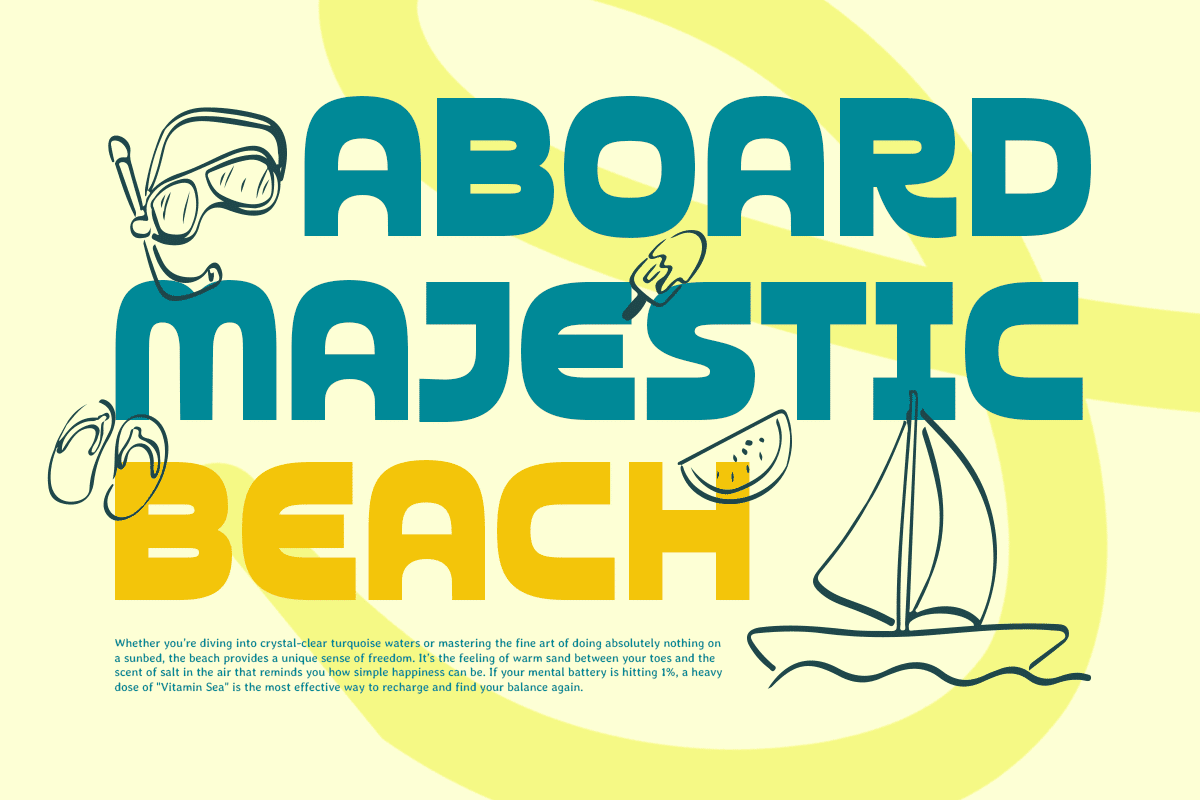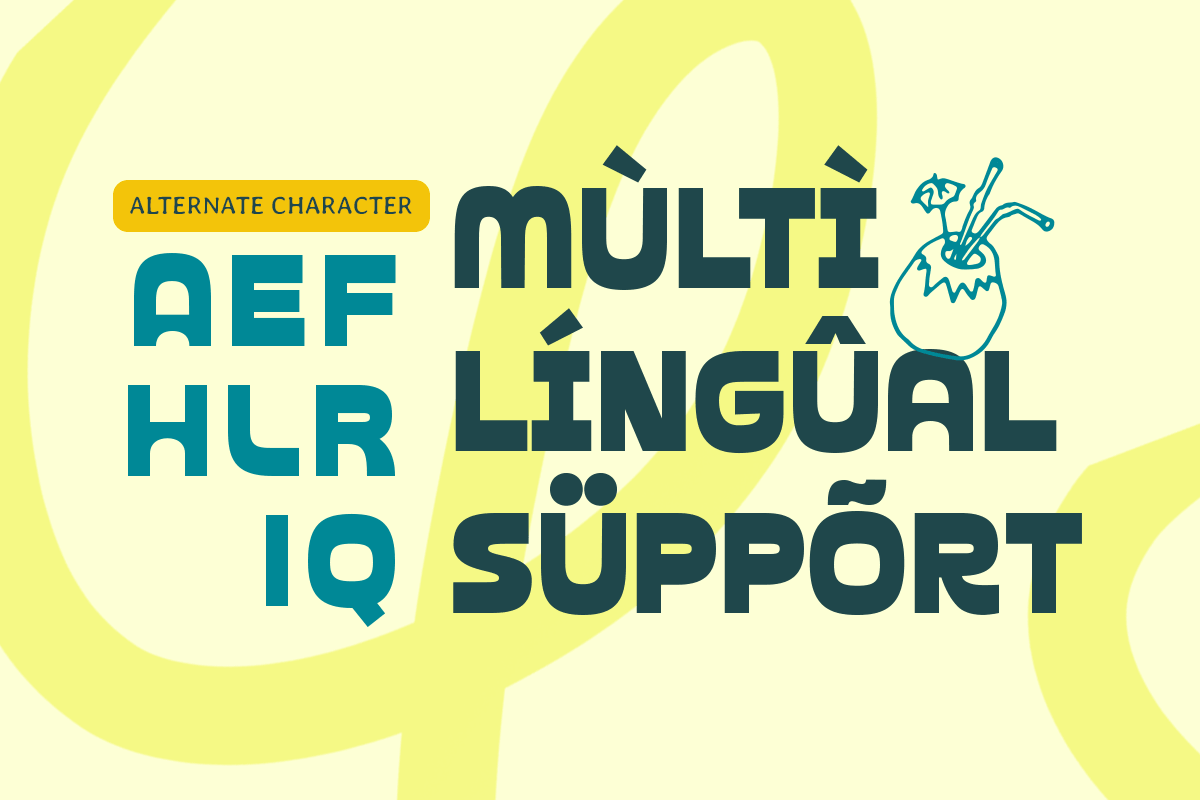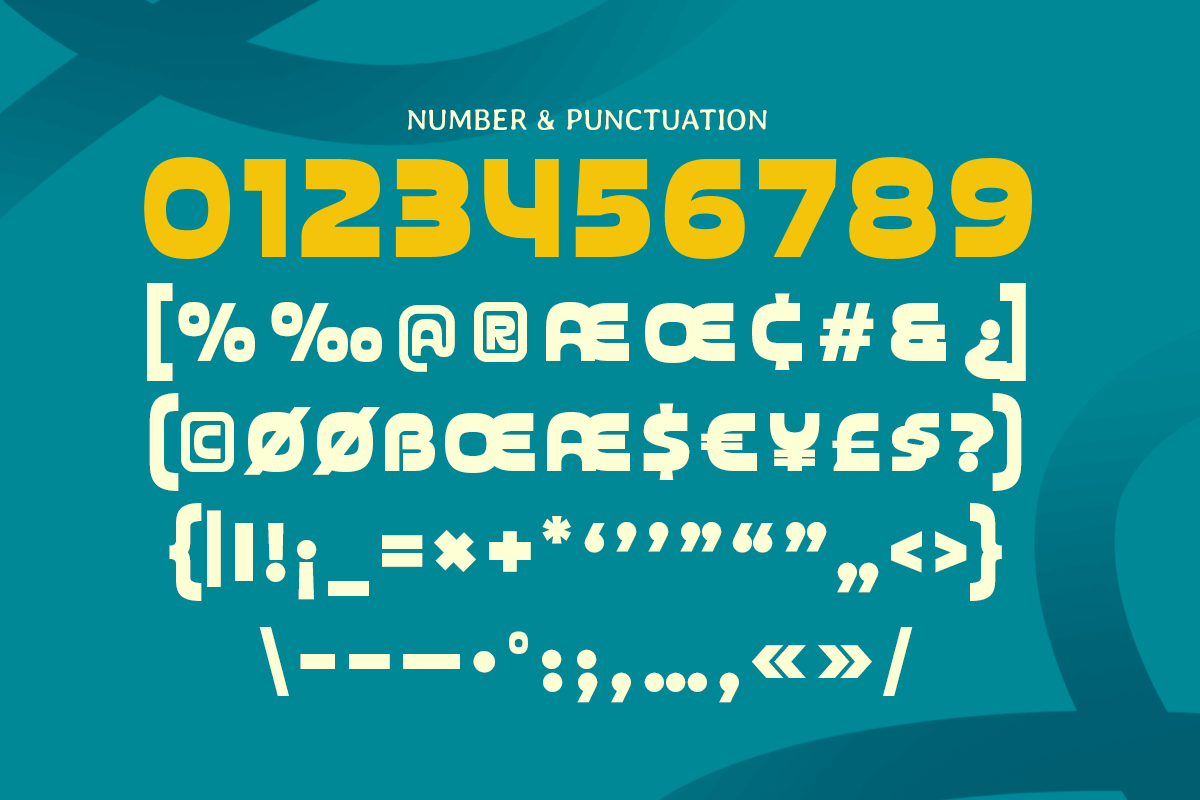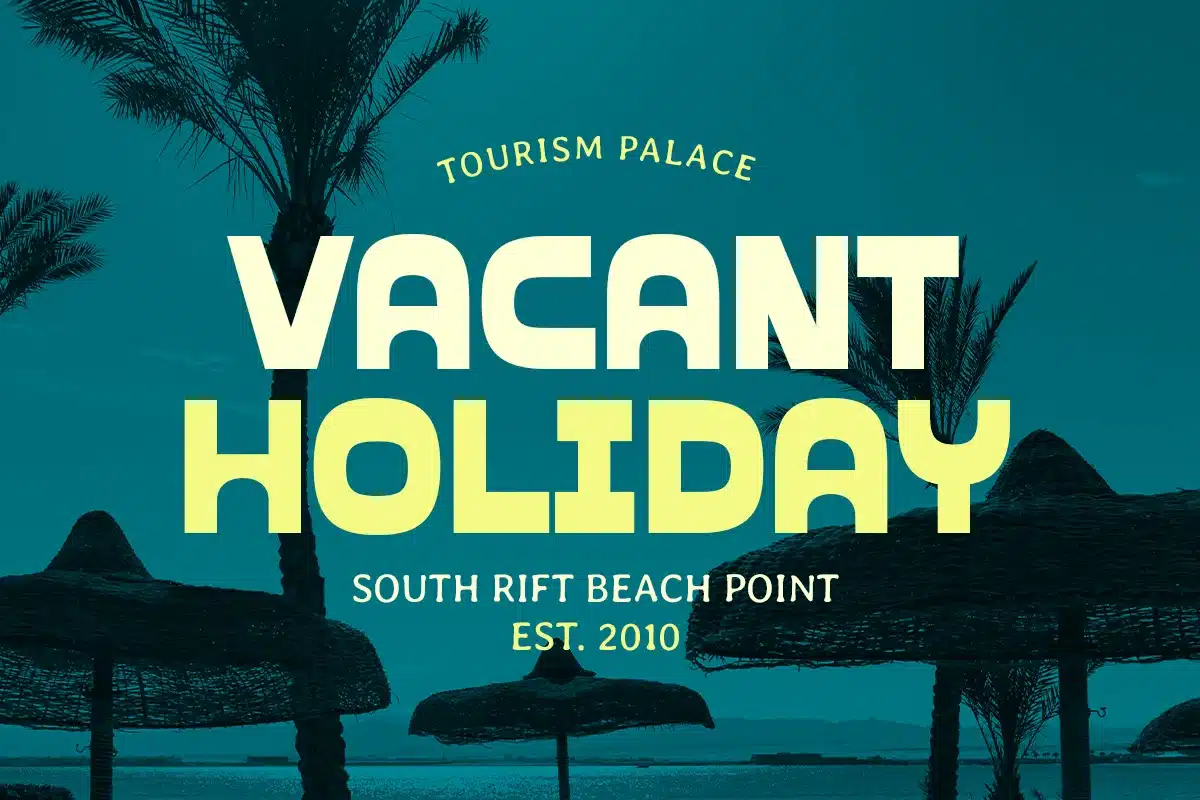
Grason – Quirky Display Retro Font
GRASON is a quirky display retro font designed to bring playful charm and nostalgic personality to your typography. With expressive shapes, bold display character, and a fun vintage-inspired rhythm, this typeface creates a memorable visual tone that feels lively, creative, and instantly eye-catching.
Built for standout branding and headline design, GRASON works beautifully across logos, wordmarks, posters, packaging, labels, signage, website headers, social media graphics, and promotional layouts. Its quirky retro style adds a distinctive twist to every composition, helping your designs feel more expressive and full of character across both digital and print applications.
Whether you’re building a fun brand identity, designing retro packaging, creating bold event posters, or crafting nostalgic campaign visuals, GRASON provides a playful display foundation that makes your typography feel unique, energetic, and unforgettable.
Inspiration Behind GRASON
GRASON is inspired by retro display lettering and playful vintage branding—where funky shapes, bold rhythm, and expressive details create instant visual personality. The design focuses on quirky character and nostalgic charm to support creative branding, posters, and headline typography with a fun modern twist.
GRASON Font Features:
- Quirky retro display letterforms with playful vintage character
- Perfect for logos, posters, branding, and headline typography
- Bold visual rhythm for standout titles and promotional layouts
- Unique personality for creative and nostalgic design projects
- OpenType features for polished professional typesetting
- Retro logos, wordmarks, and playful brand identity systems
- Posters, event graphics, and bold promotional headlines
- Packaging, labels, signage, and vintage-inspired layouts
- Social media graphics, website headers, and digital campaigns
- Creative projects, decorative titles, and funky visual concepts
Bring playful nostalgia to your visuals with GRASON—a quirky retro display font made for bold, memorable branding. ✨